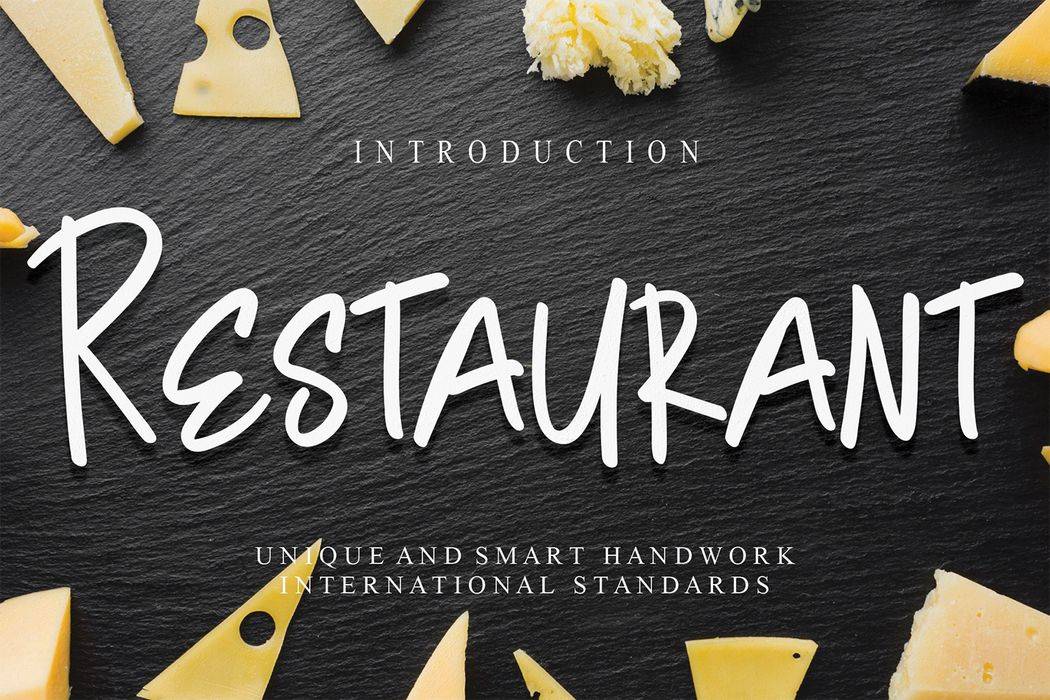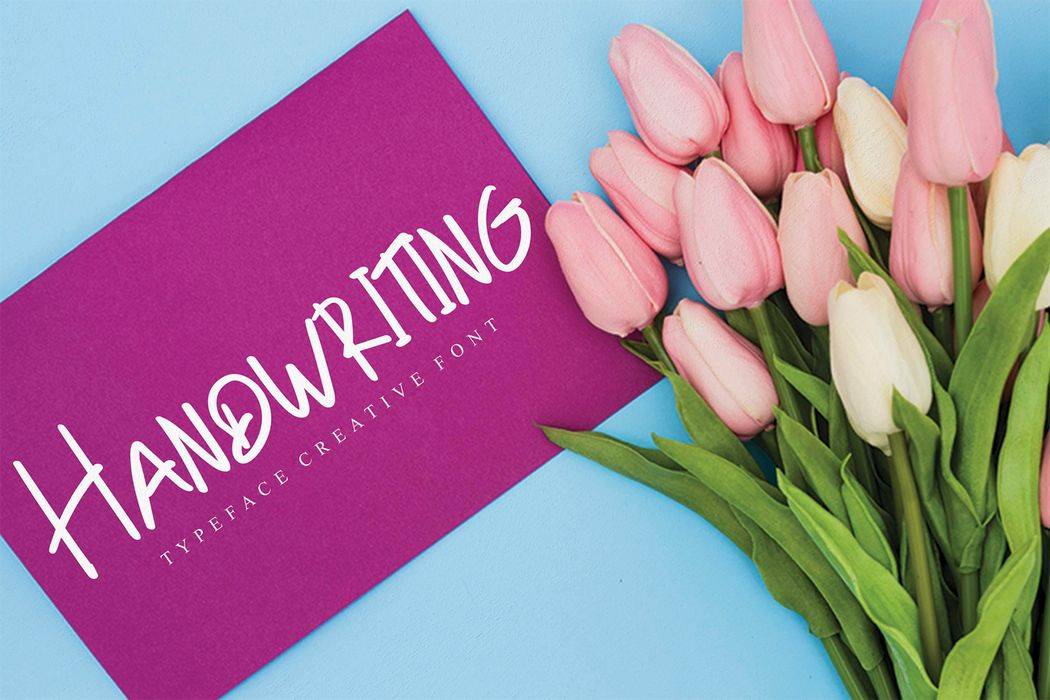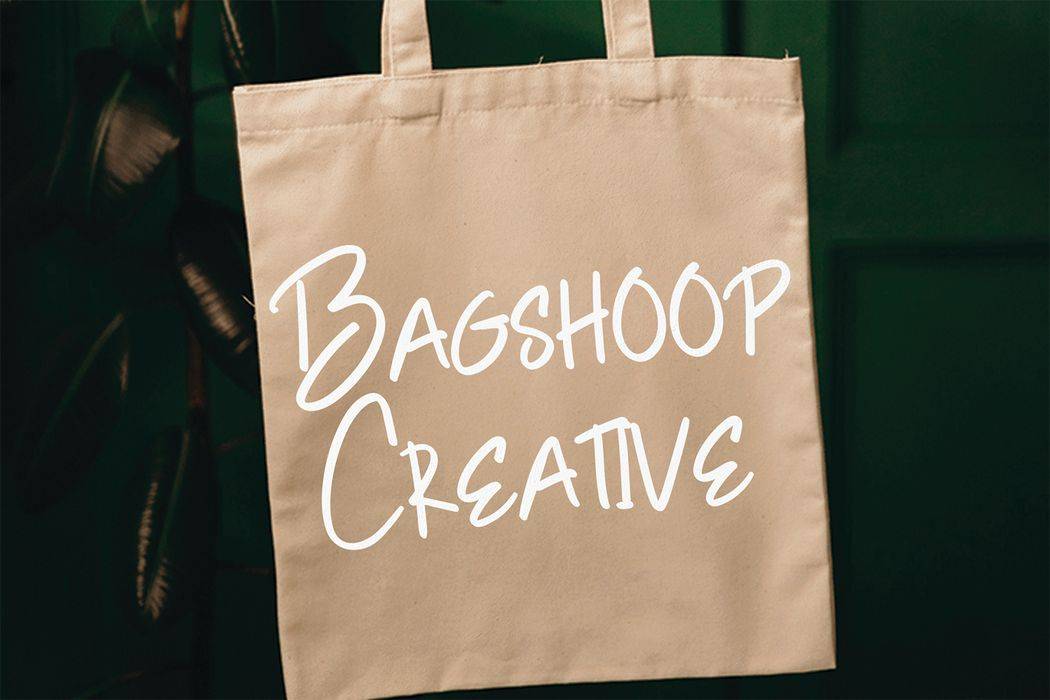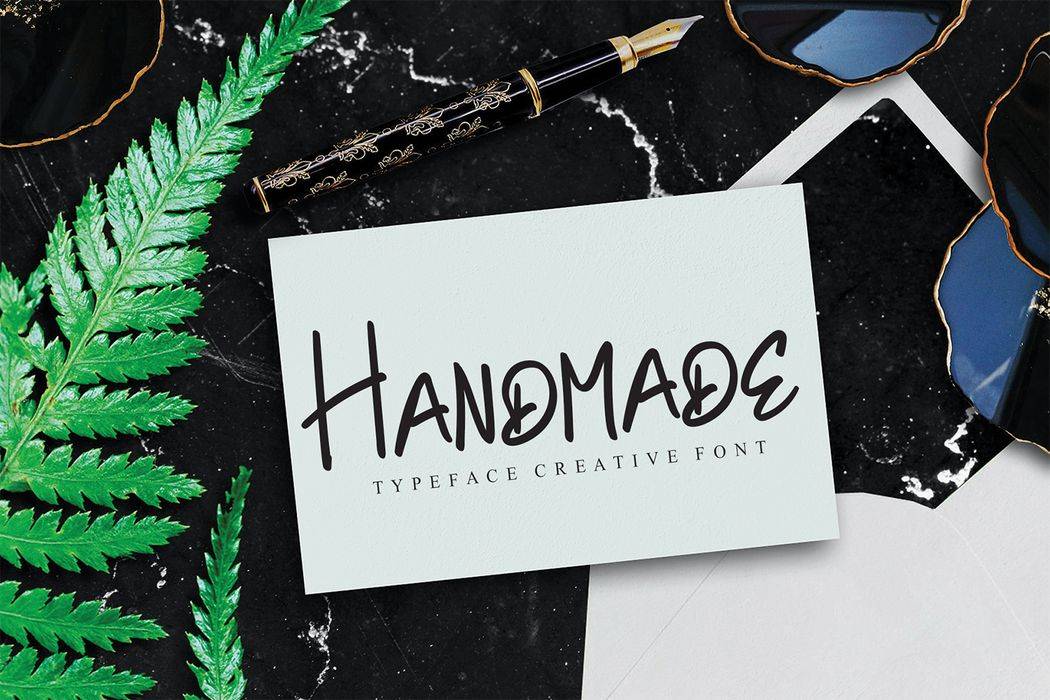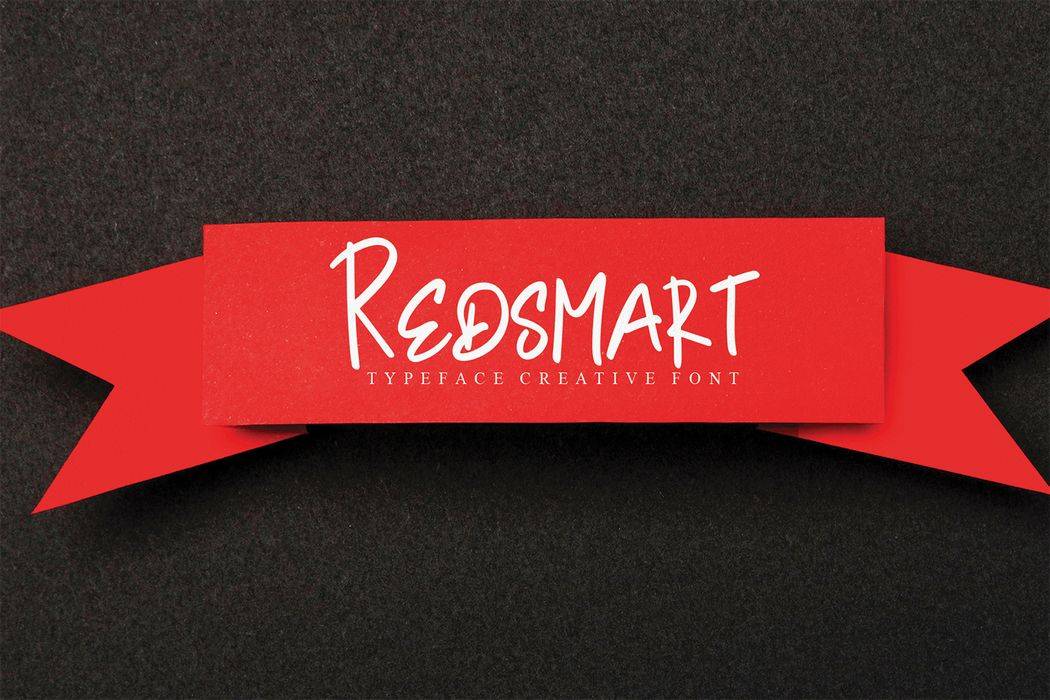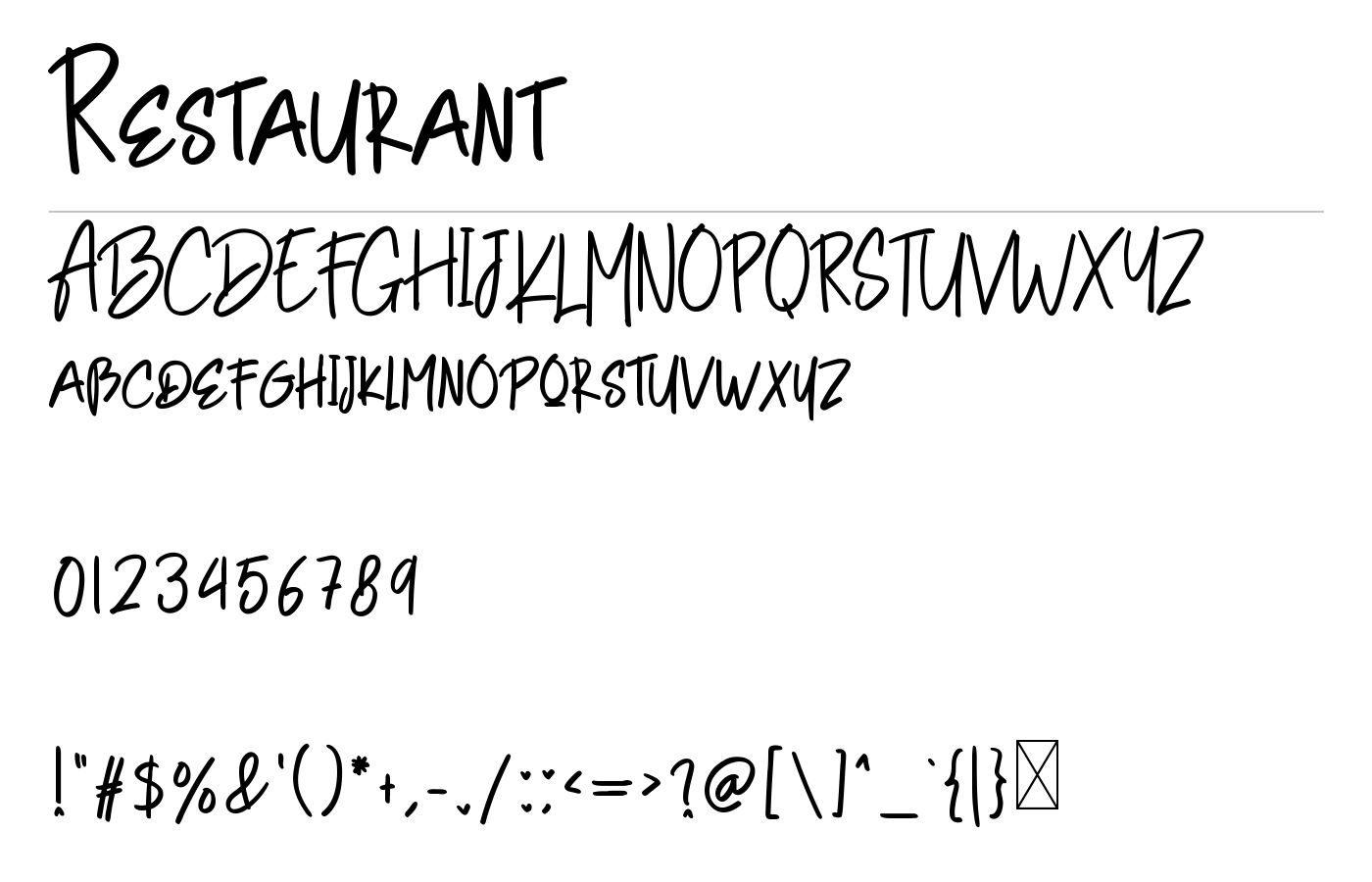
Restaurant Font is a playful and informal handwritten sans serif with a casual, friendly vibe. Its tall, narrow letterforms and varying stroke widths give it an energetic, hand-drawn feel that works well for creative, approachable branding or menus. This font shines in relaxed settings like cafes, small restaurants, or lifestyle projects where a personal, human touch is desired.
Restaurant Font
About Restaurant Font
| Font family | Restaurant Font |